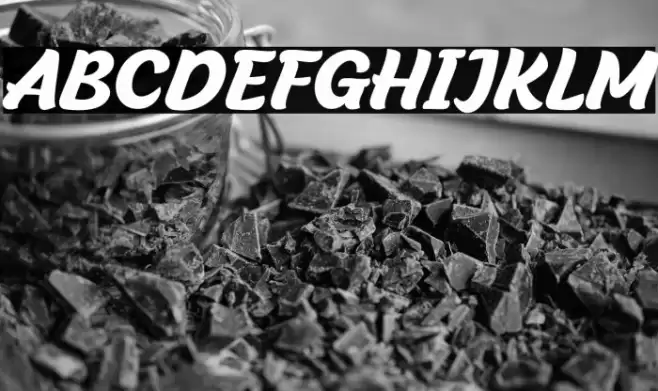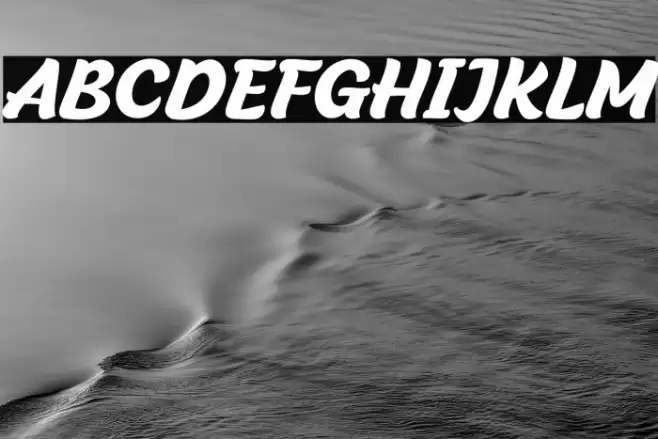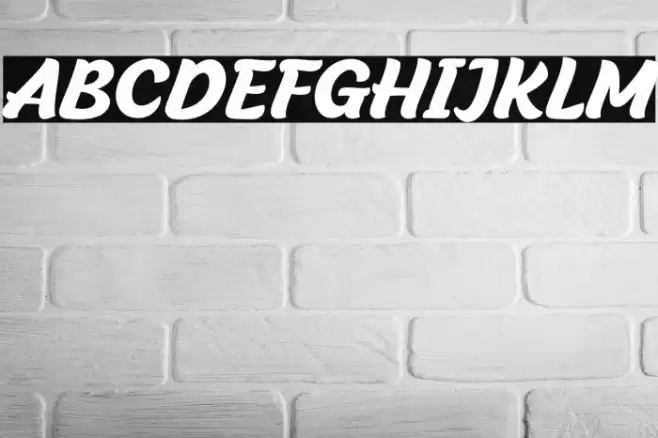
MalvieTrial-Regular Font
MalvieTrial-Regular Description
This font features a bold and dynamic script style, characterized by its fluid and slightly slanted letterforms. The uppercase letters are robust and commanding, while the lowercase letters maintain a consistent flow, enhancing readability. The numbers and special characters are designed with the same boldness, ensuring uniformity across all characters. The font's playful yet assertive nature makes it suitable for a variety of creative projects. Its thick strokes and rounded edges give it a friendly and approachable appearance, while the slight slant adds a touch of elegance and movement.
A bold, dynamic script font with fluid, slightly slanted letterforms from Uncategorized fonts.
- Font: MalvieTrial-Regular
- Proposed Projects: Ideal for branding, packaging, posters, and social media graphics.